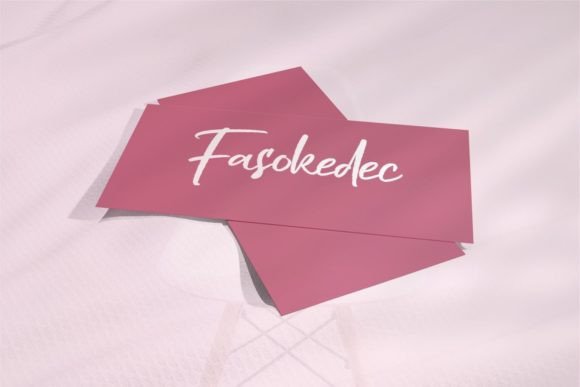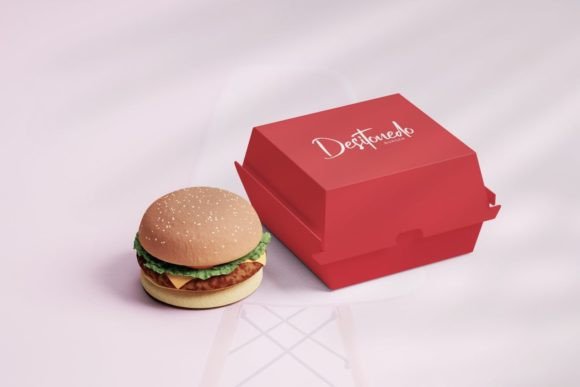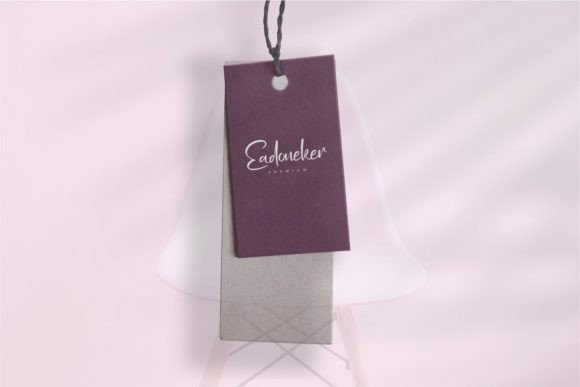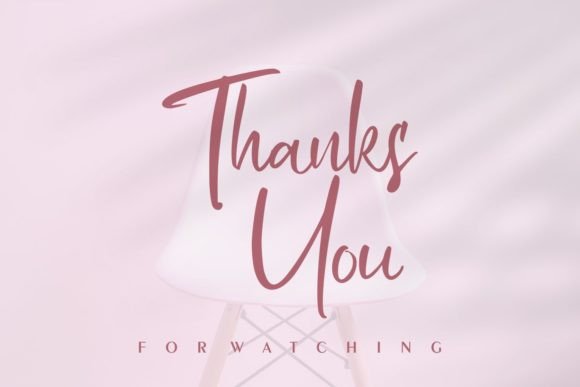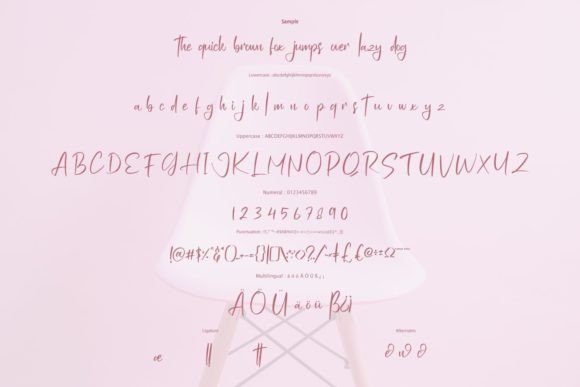
Introduction to Nasllonity Font
Nasllonity is a smooth, elegant, and flowing handwritten font.
It has beautiful and well-balanced characters and as a result, it matches a wide pool of designs Add it to your most creative ideas and notice how it makes them come alive.